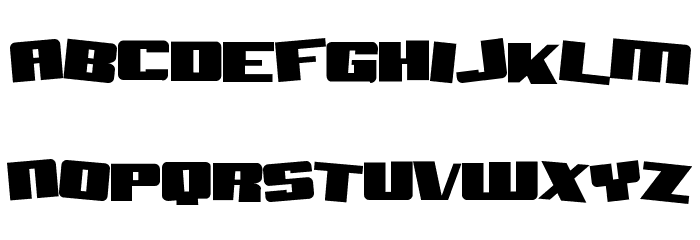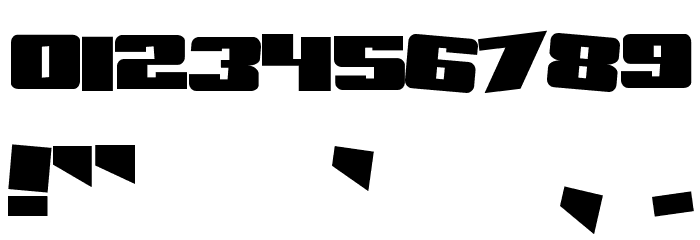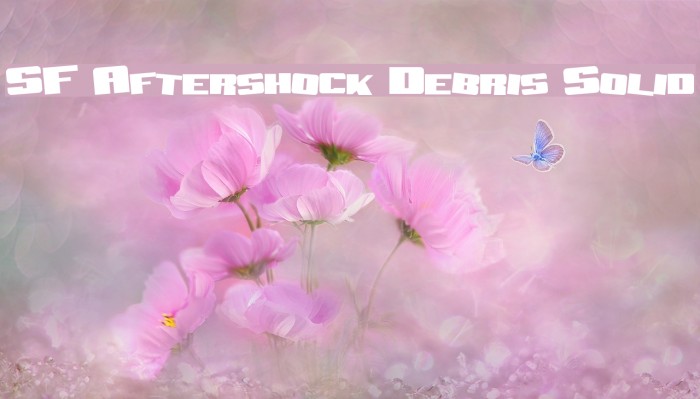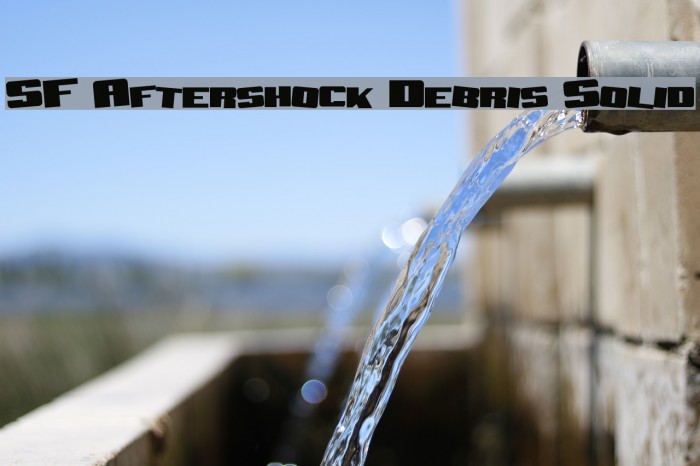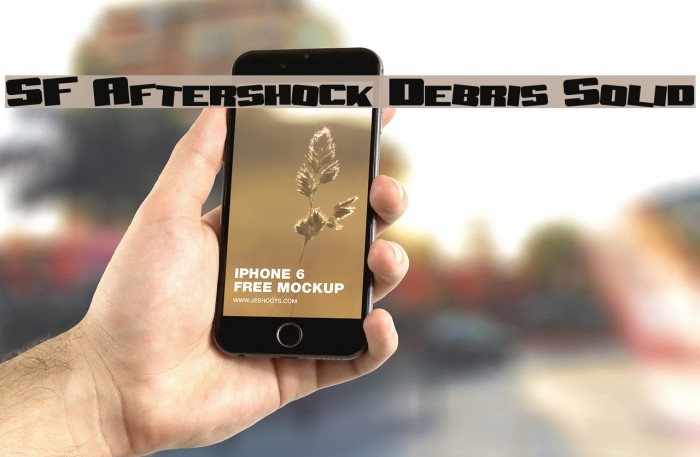
SF Aftershock Debris Solid Font
This font features a bold and dynamic style with a distinct, edgy appearance. The characters are heavily stylized, with a blocky and angular design that gives a sense of movement and energy. Each letter appears to be slightly tilted or skewed, adding to the chaotic and impactful aesthetic. The font is highly legible despite its unconventional form, making it suitable for attention-grabbing headlines or creative projects. The numbers and special characters follow the same bold and angular design, ensuring consistency across all elements.
A bold, angular font with a dynamic and edgy style.
- Proposed Projects: Ideal for posters, video game graphics, branding for extreme sports, or any project needing a bold, impactful look.